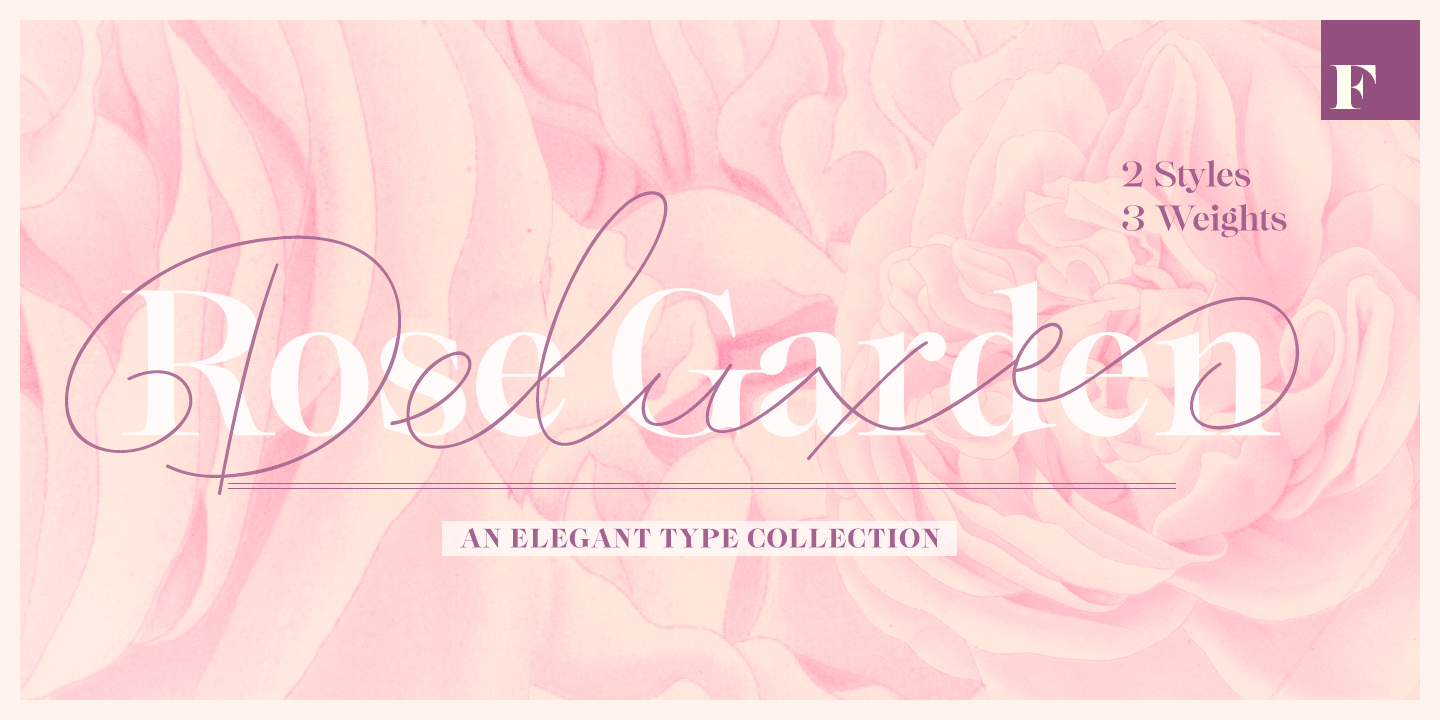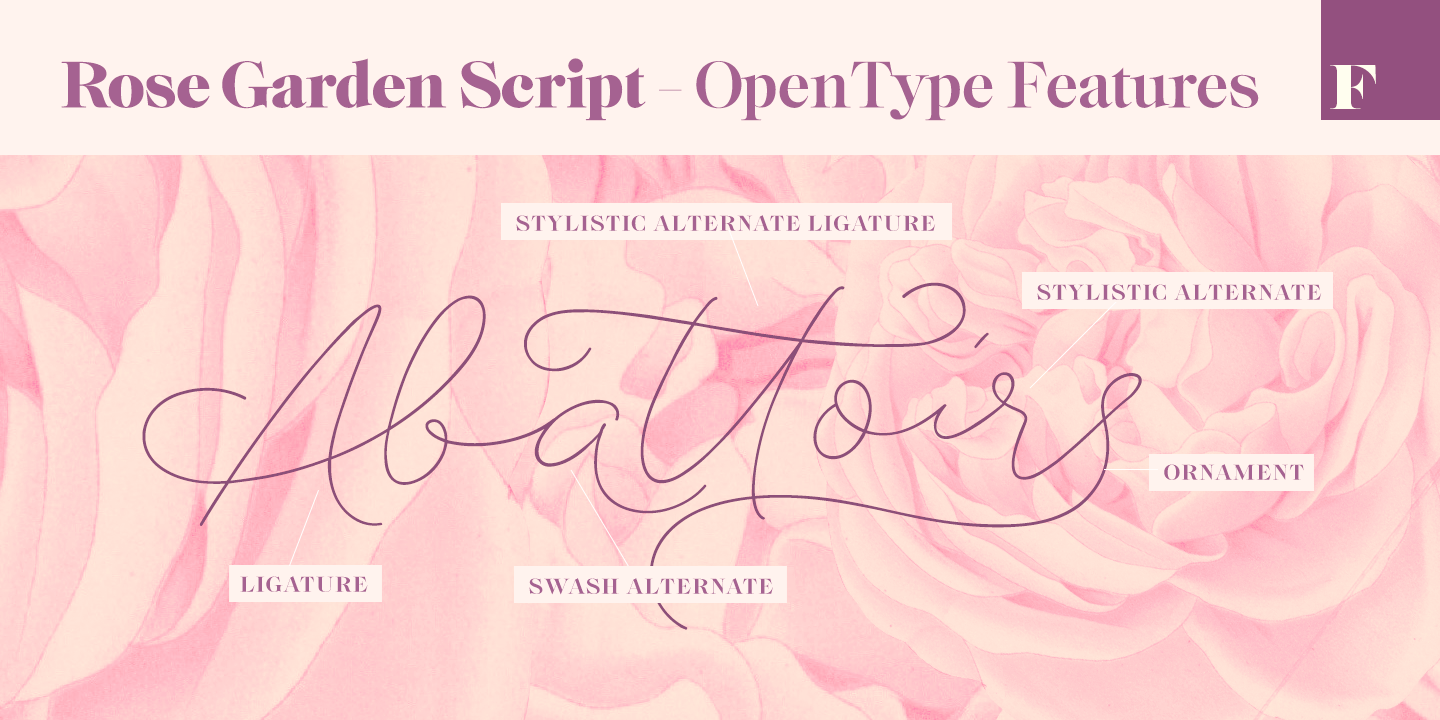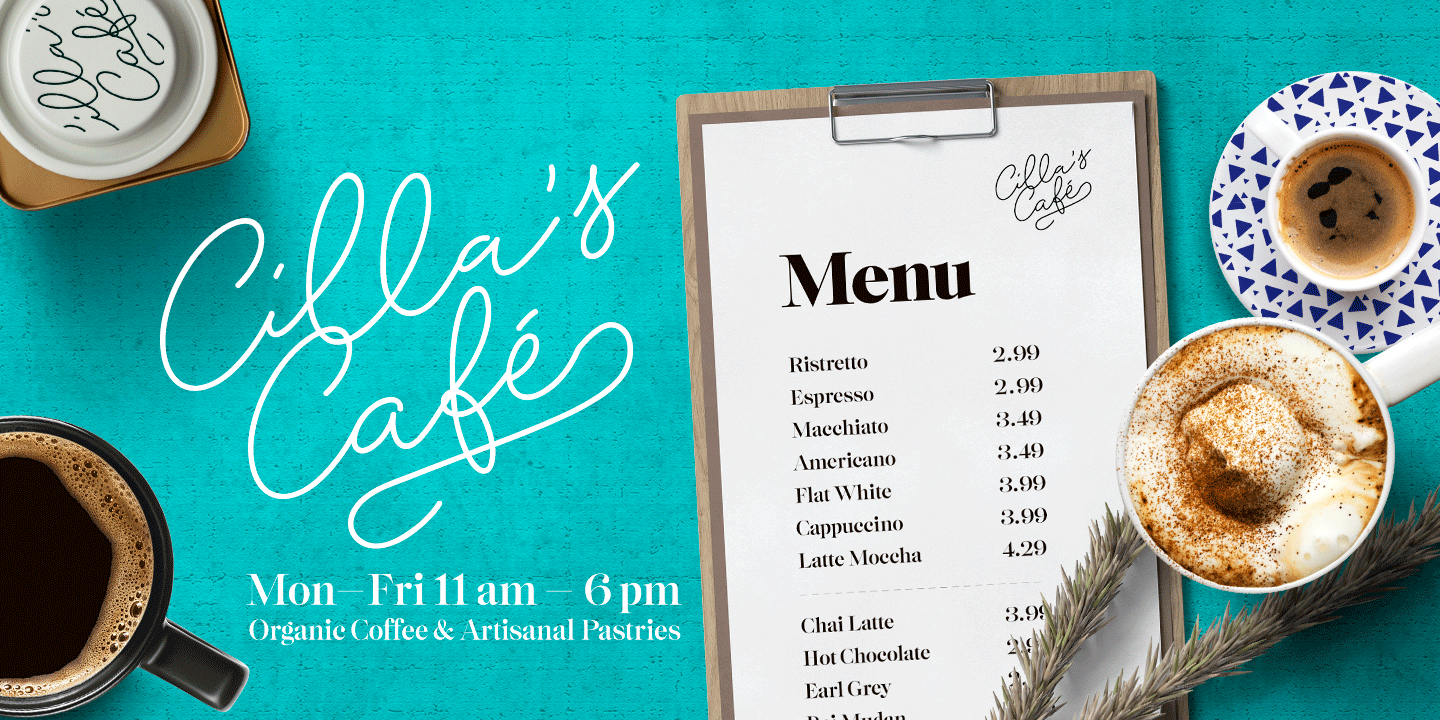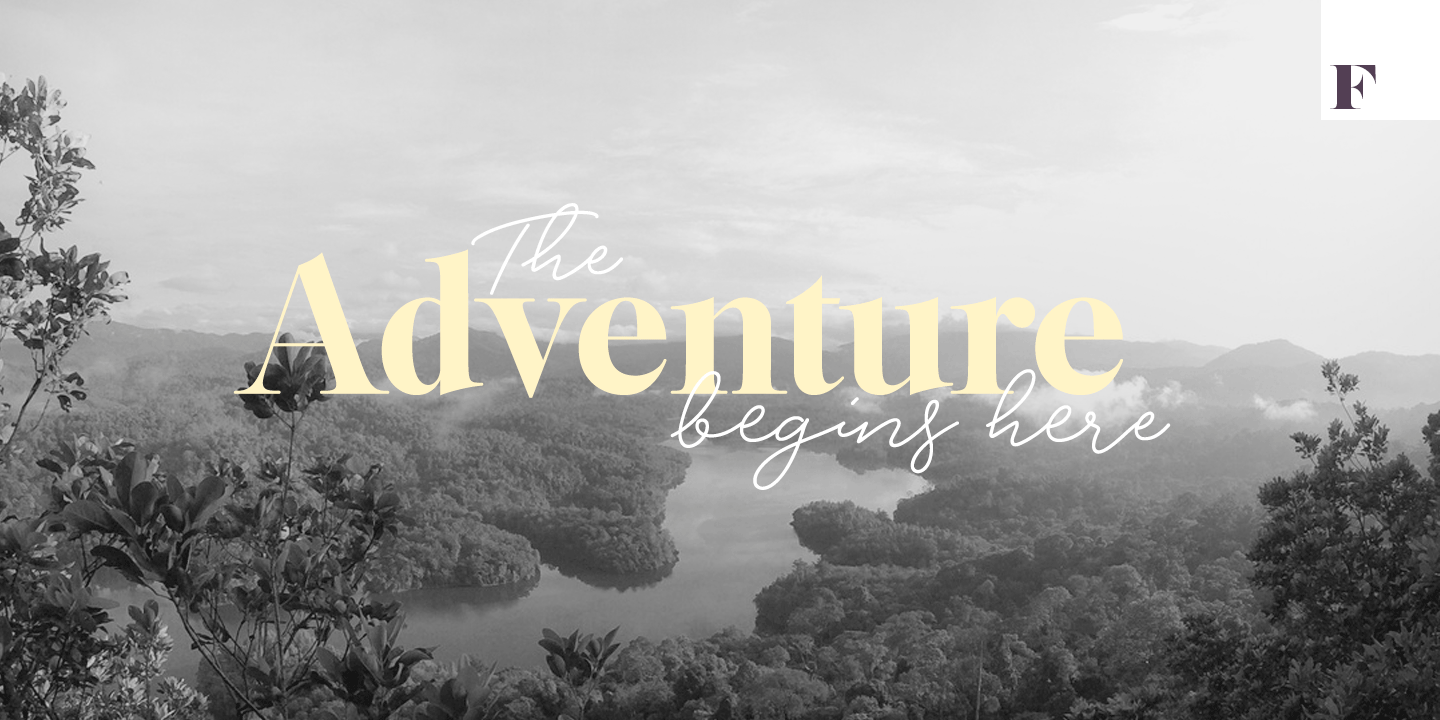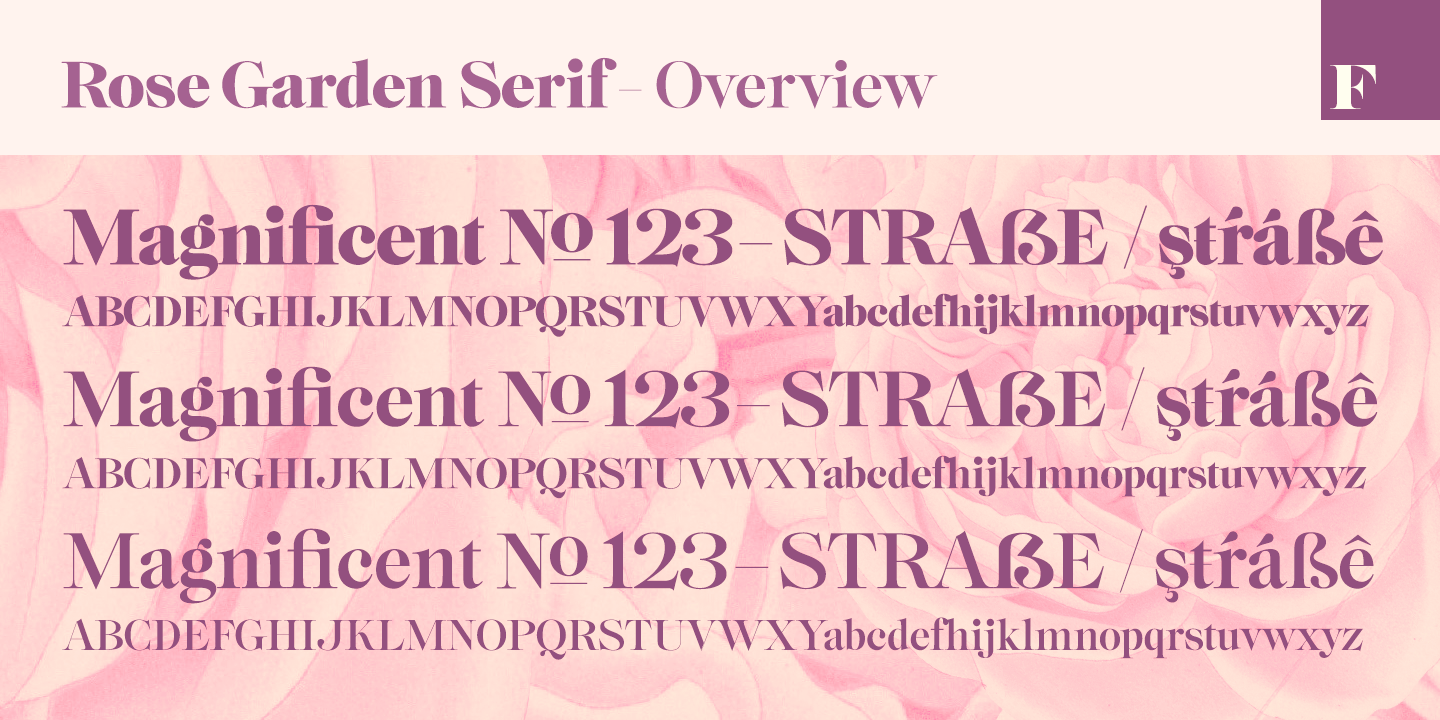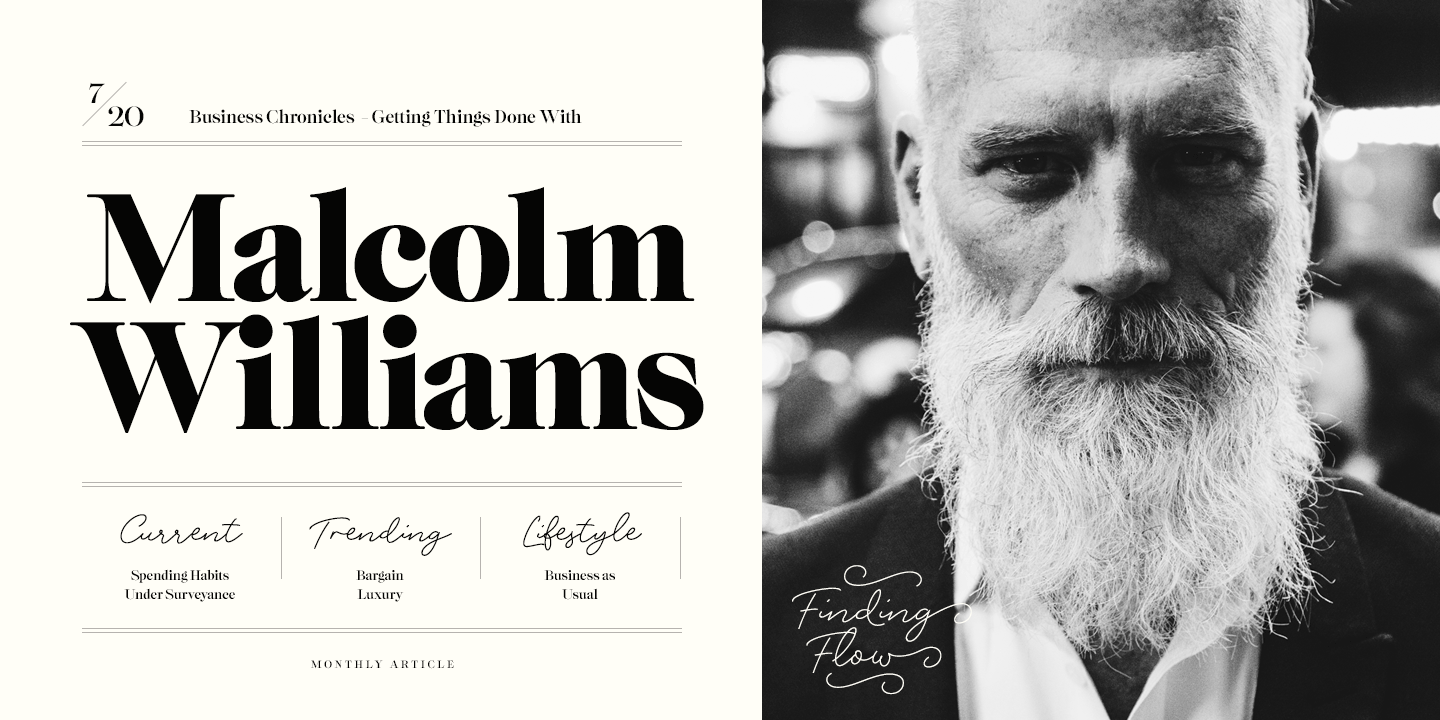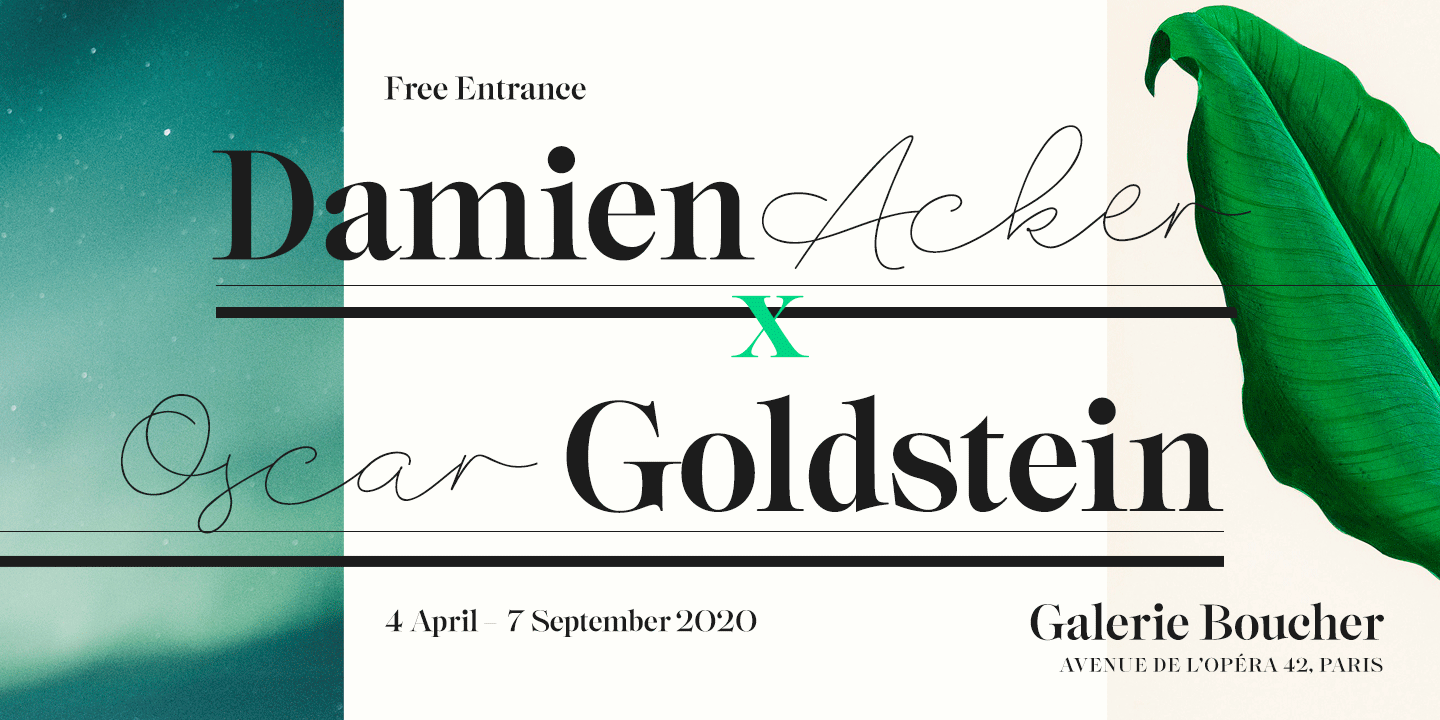
Rose Garden Deluxe
Rose Garden Deluxe is an elegant type collection including a luscious high contrast serif in three weights and an ethereal pen script also in three weights. Together the fonts form an effective all-around set for sophisticated display purposes. The fonts are best used for imposing headlines, as a logotype, in packaging and posters.
Rose Garden Serif has an extra high contrast giving it a sophisticated look, suitable for fashion or luxurious high-end products, magazines and anything such.
Rose Garden Pen is a monoline script, as if it was written with a steady and precise inking pen. Rose Garden Pen is equipped with plenty of useful OpenType features: it has Contextual Alternates and Standard Ligatures to enliven the flow of ?writing? and to keep the connections between letters smooth. In addition it has Stylistic and Swash Alternates for every standard uppercase and lowercase characters, as well as for ampersand and few ligatures. On top of that it has initial and terminal swashes - a feature that is set in Titling Alternates. The feature works following: click it on and write normally. Type a space before a word and after it to get a special swash character in the beginning and in the end of the word. If that isn't enough seek for even more alternates in the Glyphs Palette. Each weight has over 650 glyphs in total.
Rose Garden Ornaments is an extension to Rose Garden Pen. It's a set of Ornaments with the same weight and handwriting style as the font. The swooshes can be combined with the font for even more ornamental looks and the swashes set in lowercase letters can be used as additional terminal swashes, combined with any lowercase character.